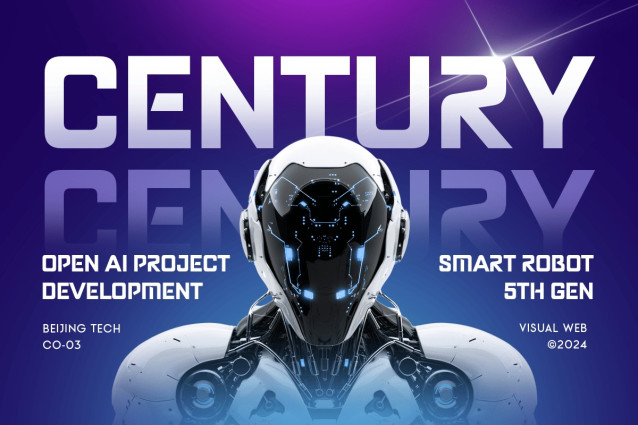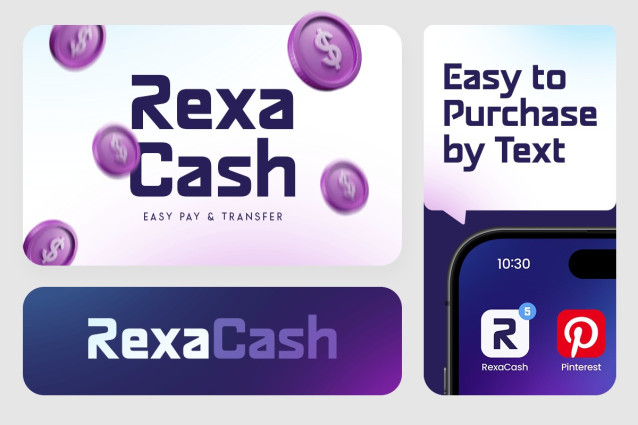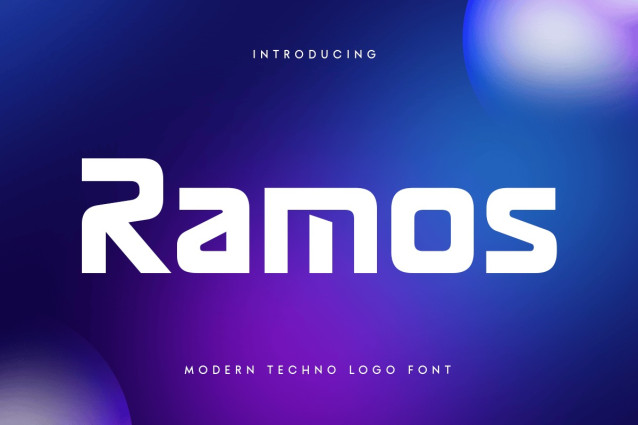
Ramos Font
Ramos Font is a modern techno logo font crafted for brands and projects that thrive on innovation and forward-thinking design. Its clean, sharp edges and futuristic style make it ideal for technology-focused businesses, digital products, and creative projects that want to convey modernity and cutting-edge appeal. Whether used for logos, app interfaces, or website headers, Ramos gives your brand an ultra-modern look.
The font’s sleek lines and geometric design are perfect for minimalistic branding, ensuring that your logo stands out in a competitive market. Ramos captures the essence of progress and technological advancement, making it suitable for industries like IT, electronics, and futuristic design projects.
With its alternative characters and multilingual support, Ramos provides flexibility for designers to experiment with their visual identity. This font’s blend of modern aesthetics and technical precision makes it an essential choice for brands seeking a bold, contemporary look.